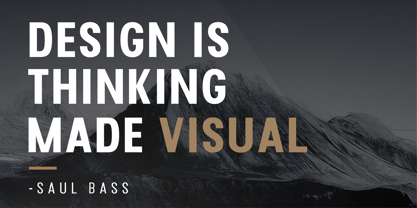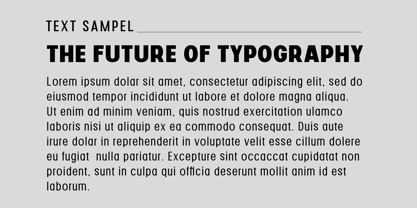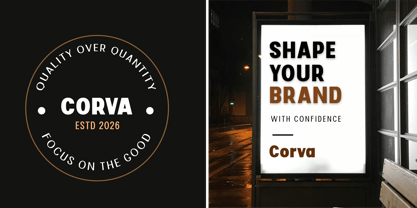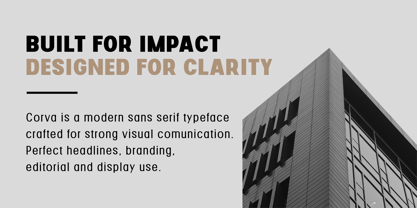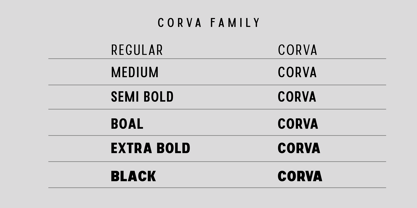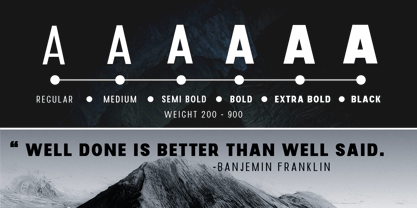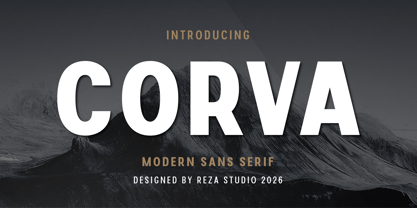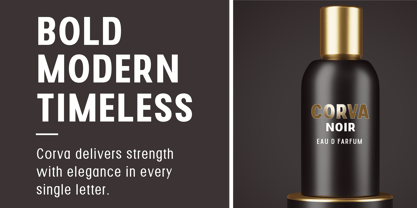
Corva
A família de fontes Corva foi desenhada por Reza Mukhtazar e publicada pela Rezastudio. Corva contém 6 estilos e opções de pacote familiar. Saiba mais sobre esta família
Corva is a bold modern sans serif typeface crafted with a clean condensed structure and strong visual presence. Designed for impactful headlines, contemporary branding, editorial layouts, posters, packaging, and premium visual identities.
Its minimalist geometry, sharp proportions, and versatile weight system make Corva perfect for projects that demand clarity, confidence, and modern sophistication.
Perfect for:
Branding, logos, posters, editorial design, packaging, advertising, social media, web headers, and luxury visual concepts.
Features:
• 3 Weights ( Regular, Medium, Semi Bold, Bold, Extra Bold, Black)
• Uppercase & Lowercase
• Numbers & Punctuation
• Multilingual Support
• Ligatures
• Modern Condensed Style